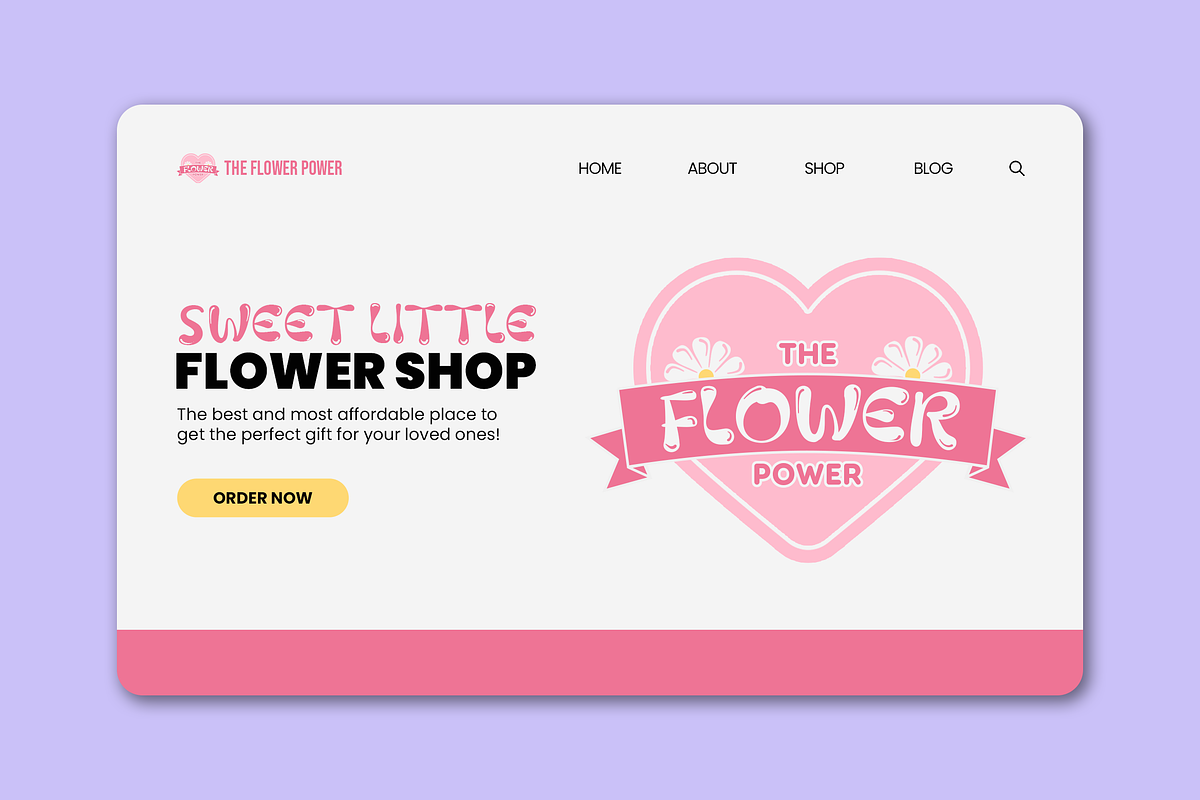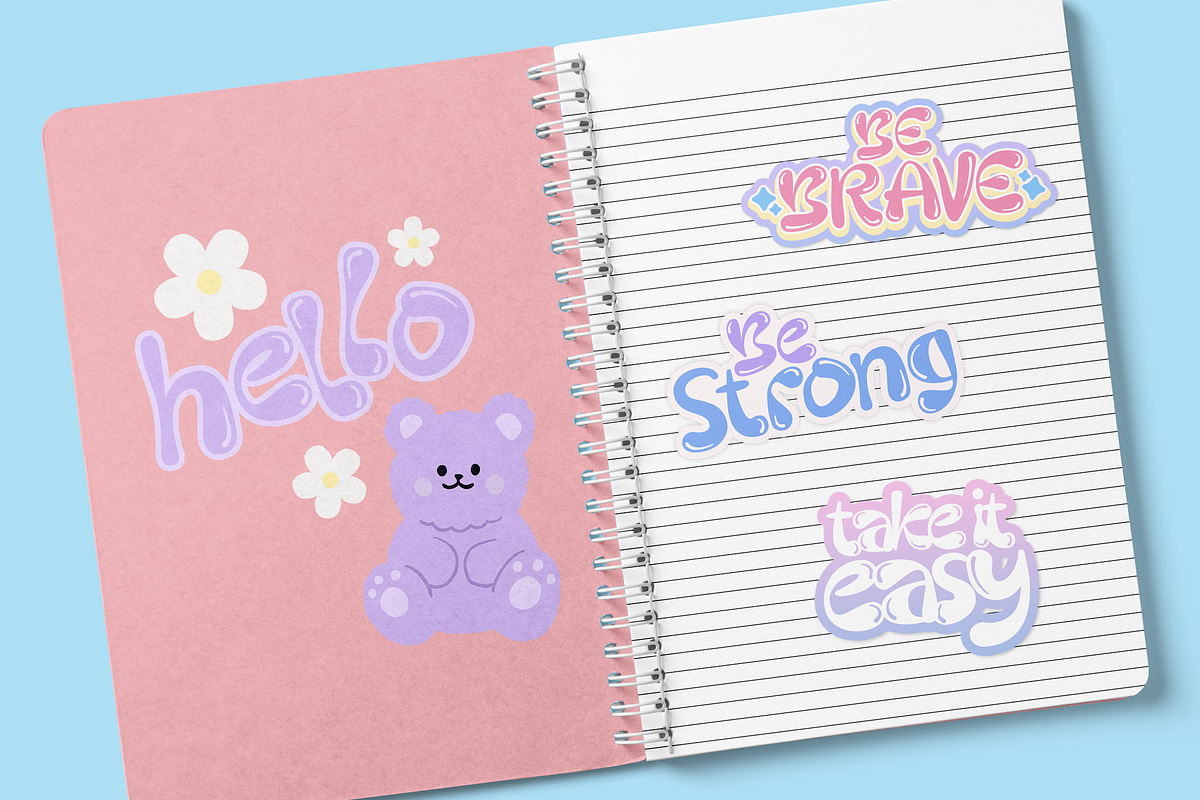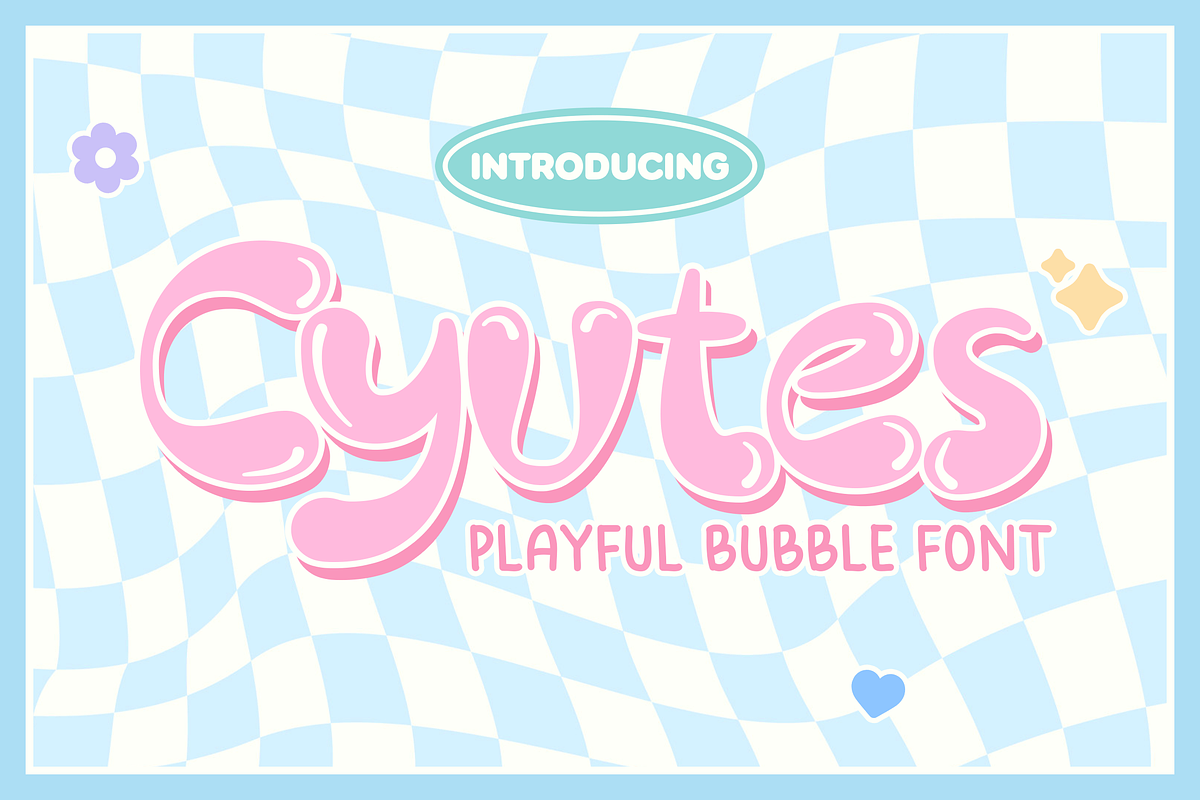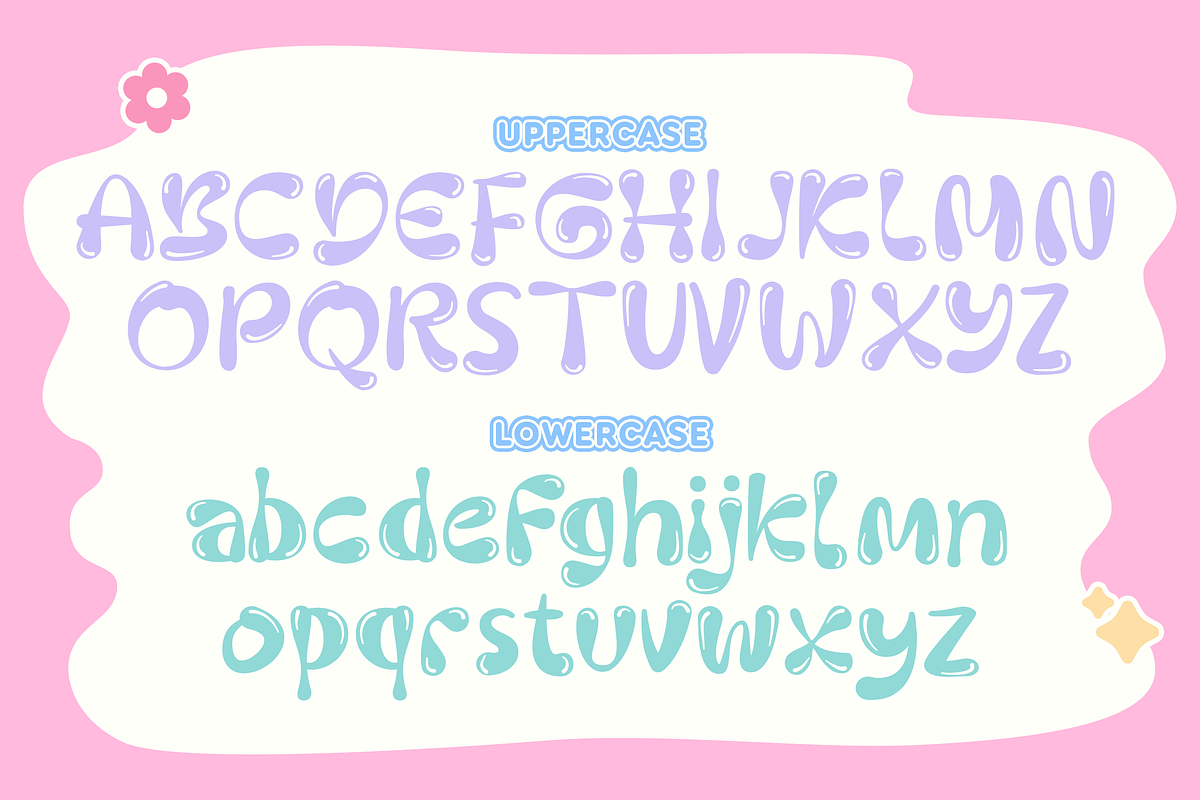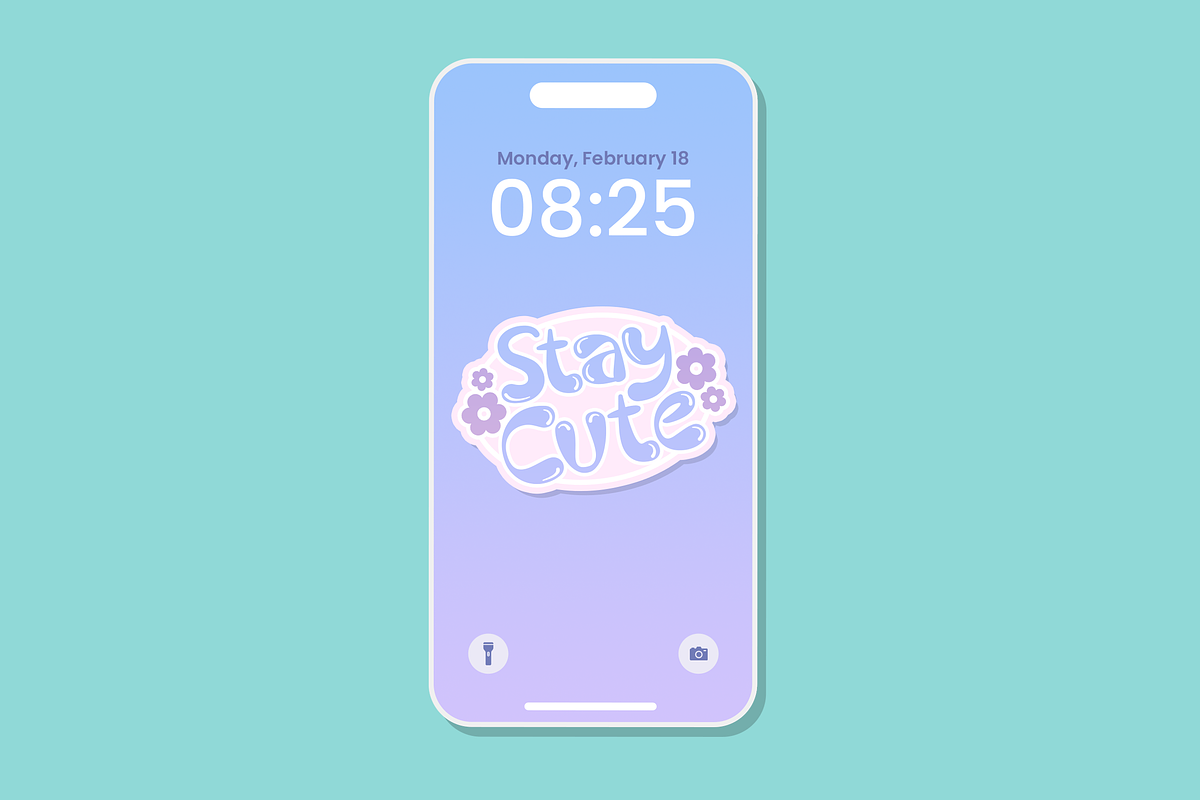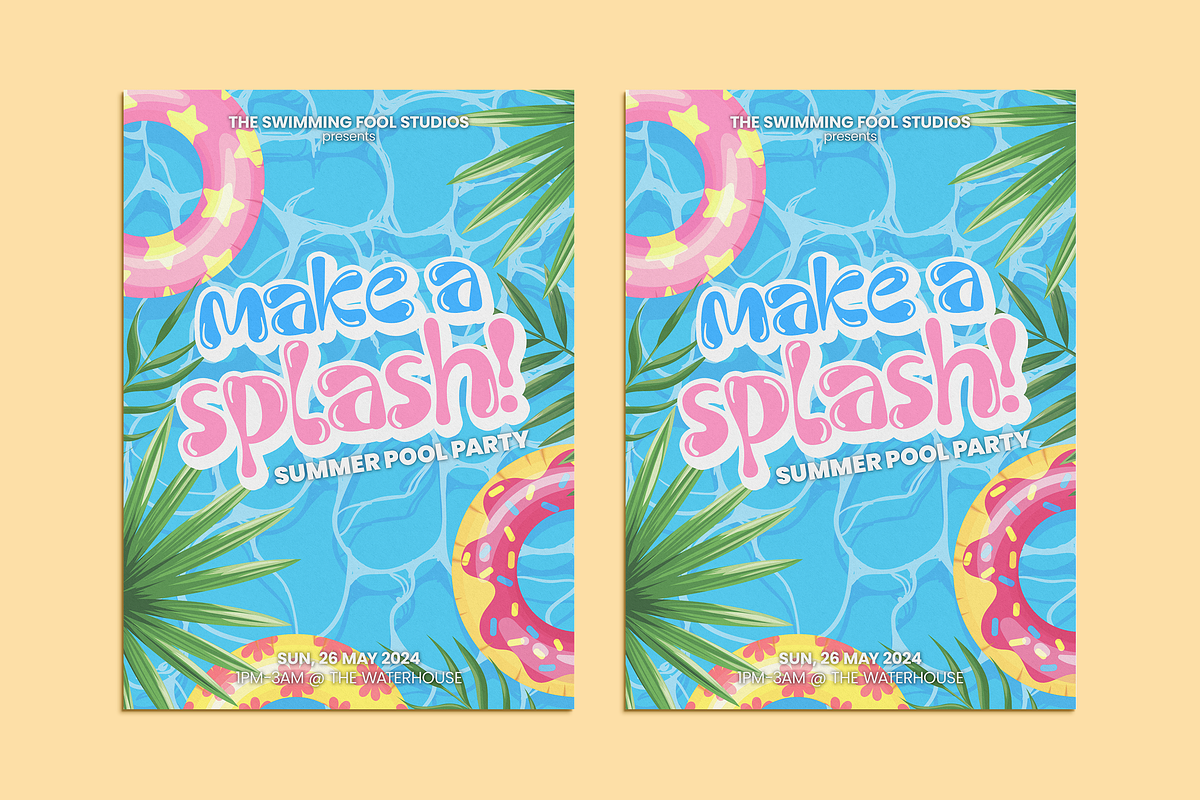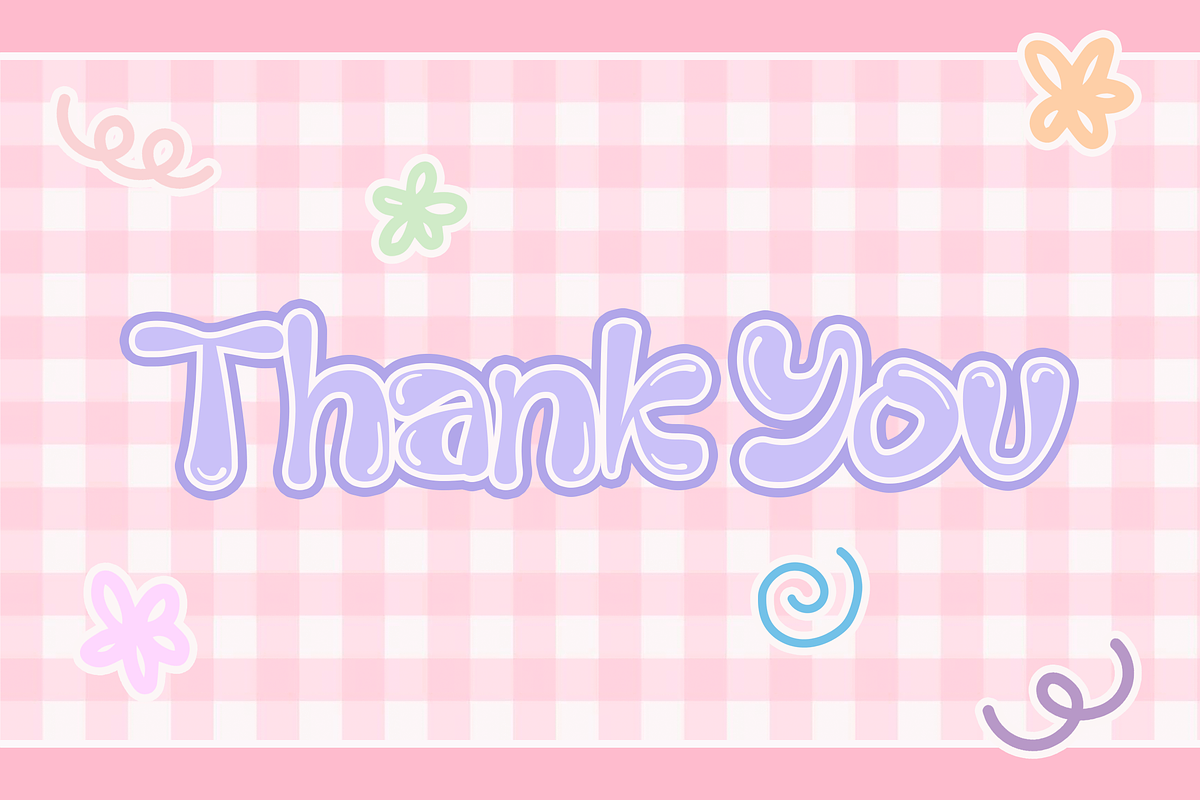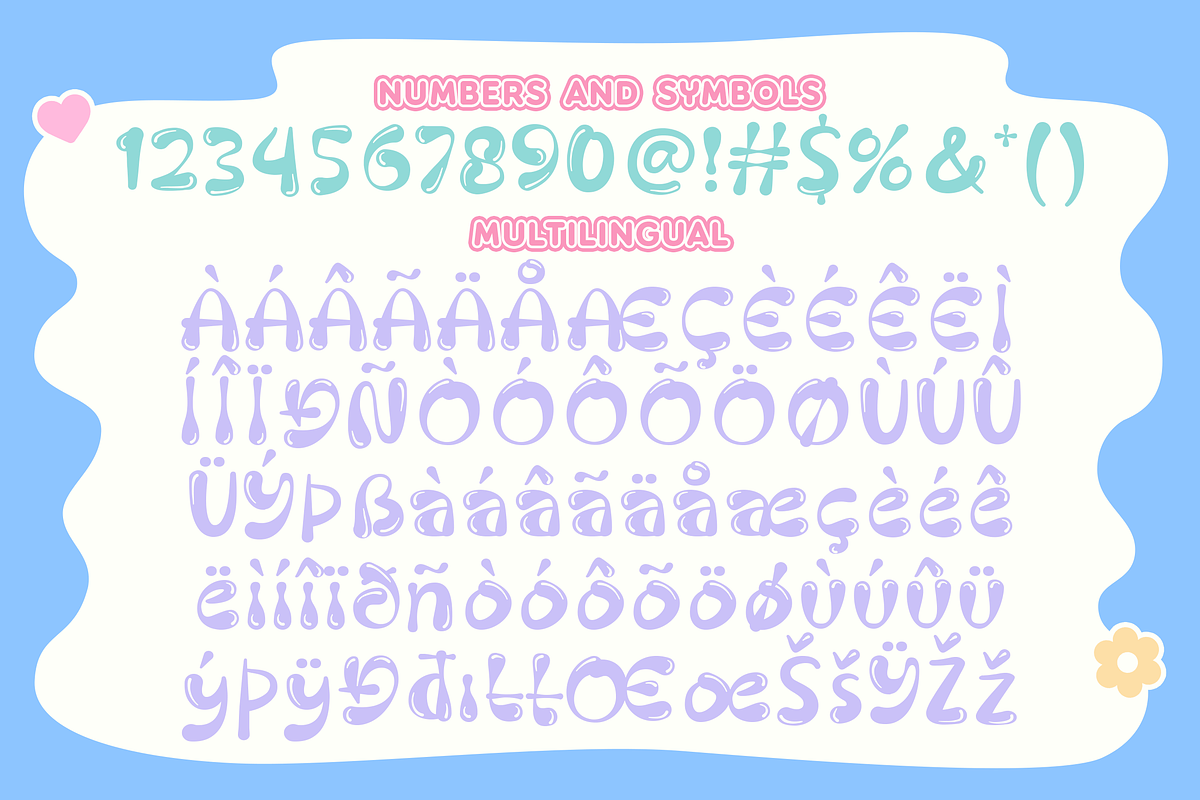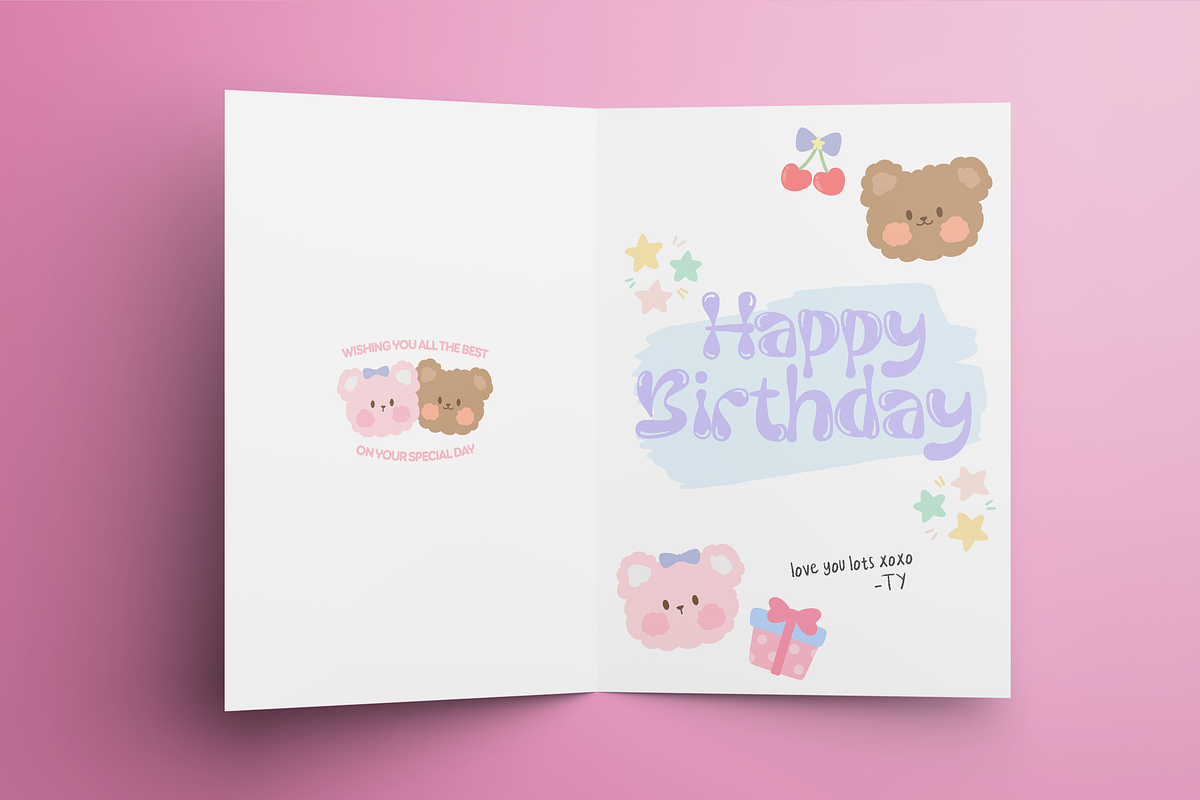
Cyutes - A Playful Bubble Font
Add a splash of fun and whimsy to your designs!
Introducing Cyutes - A Playful Bubble Font.
Transform your brand’s visual identity with the lively and charming style of this font. Its bubbly characters are perfect for children's books, playful branding, or any project that needs a touch of lightheartedness. Enjoy!
- Multilingual & Ligature Support
- Full sets of Punctuation and Numerals